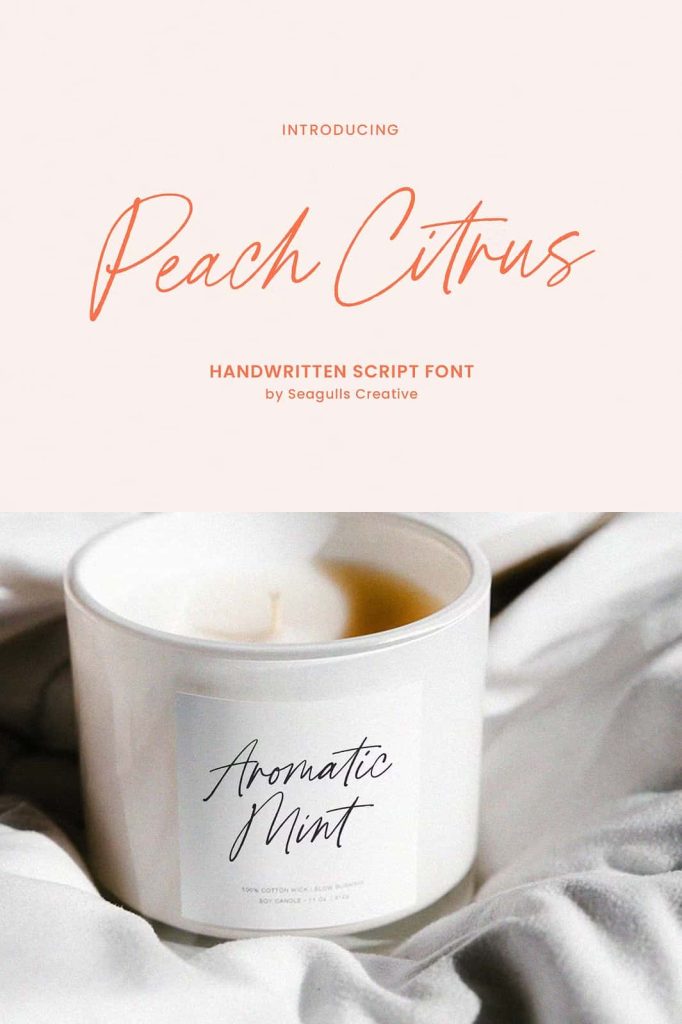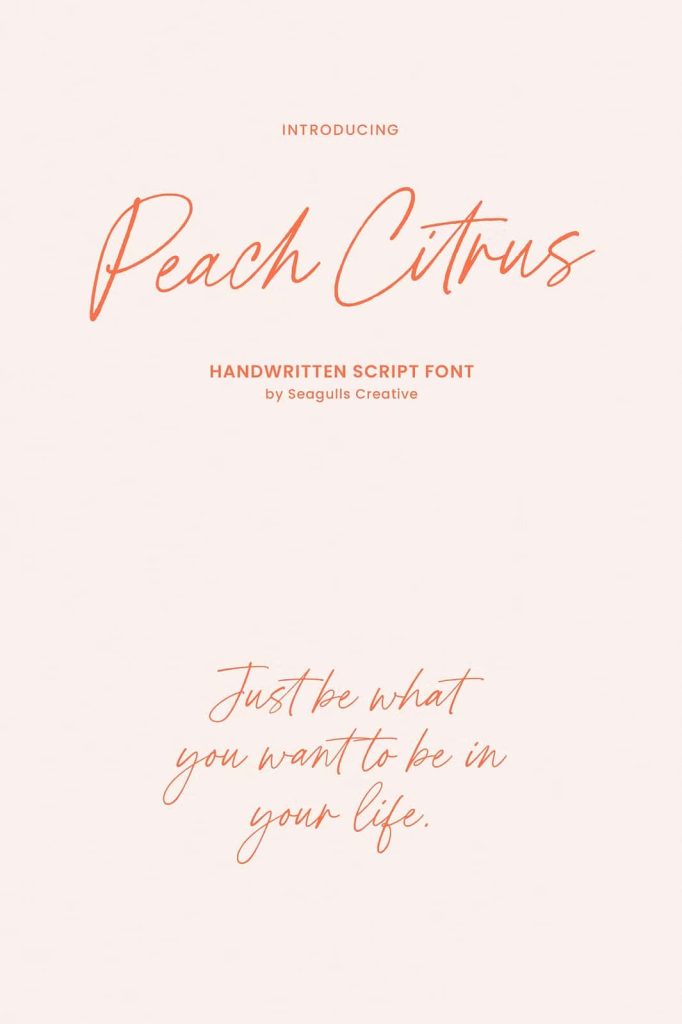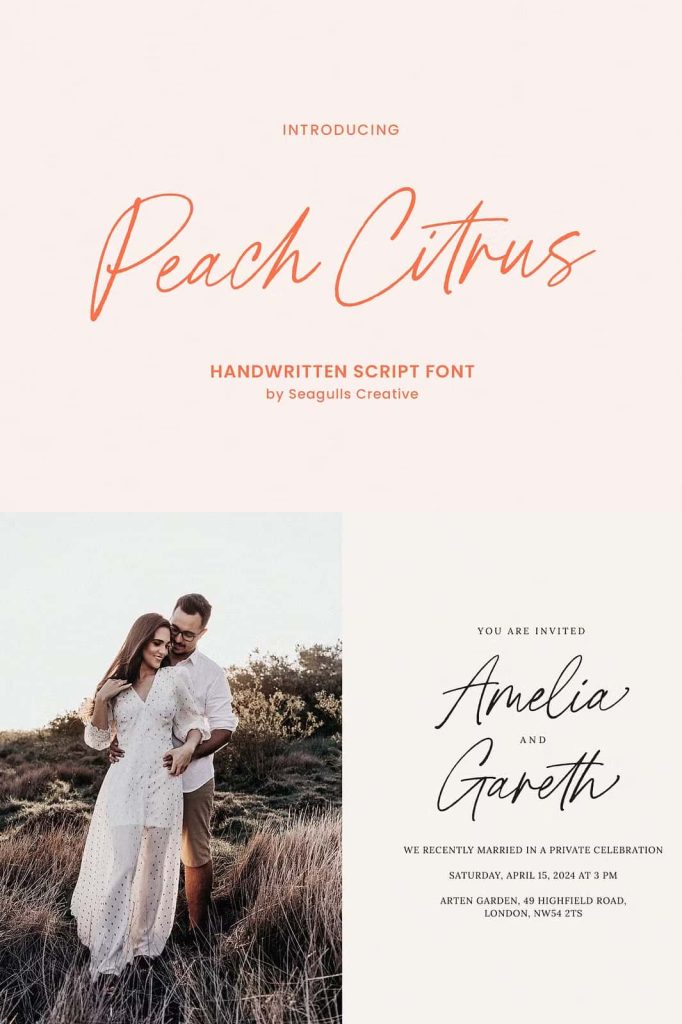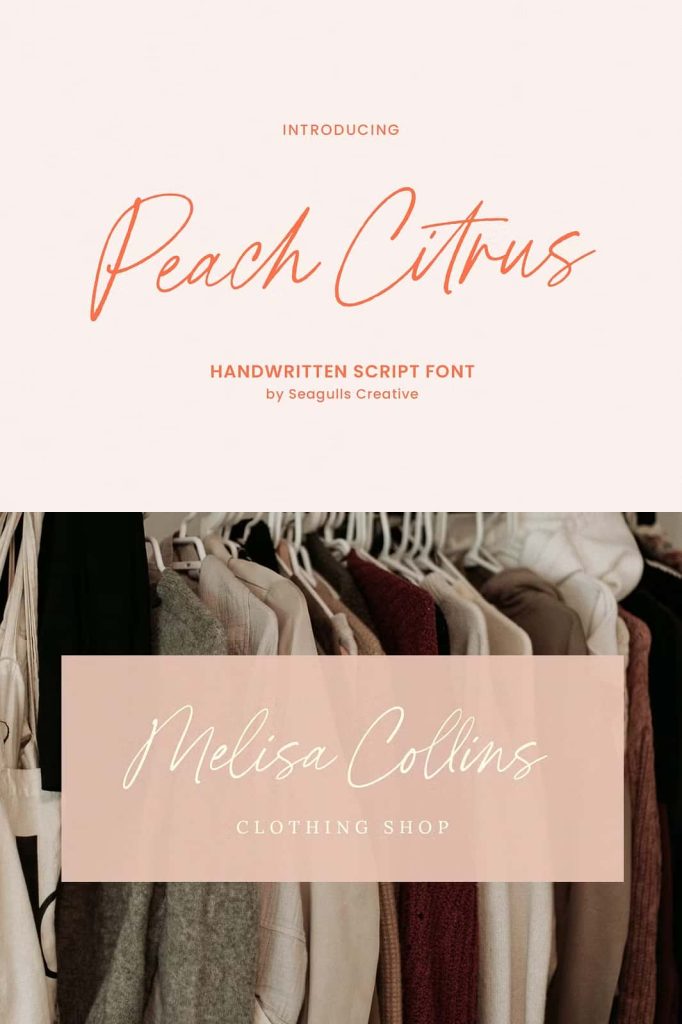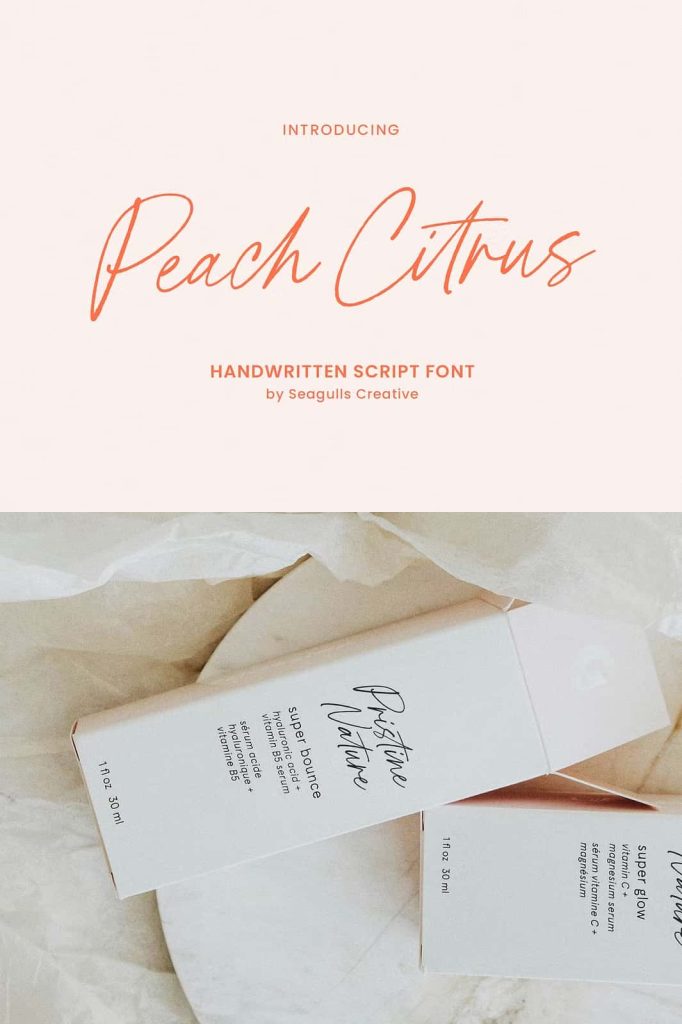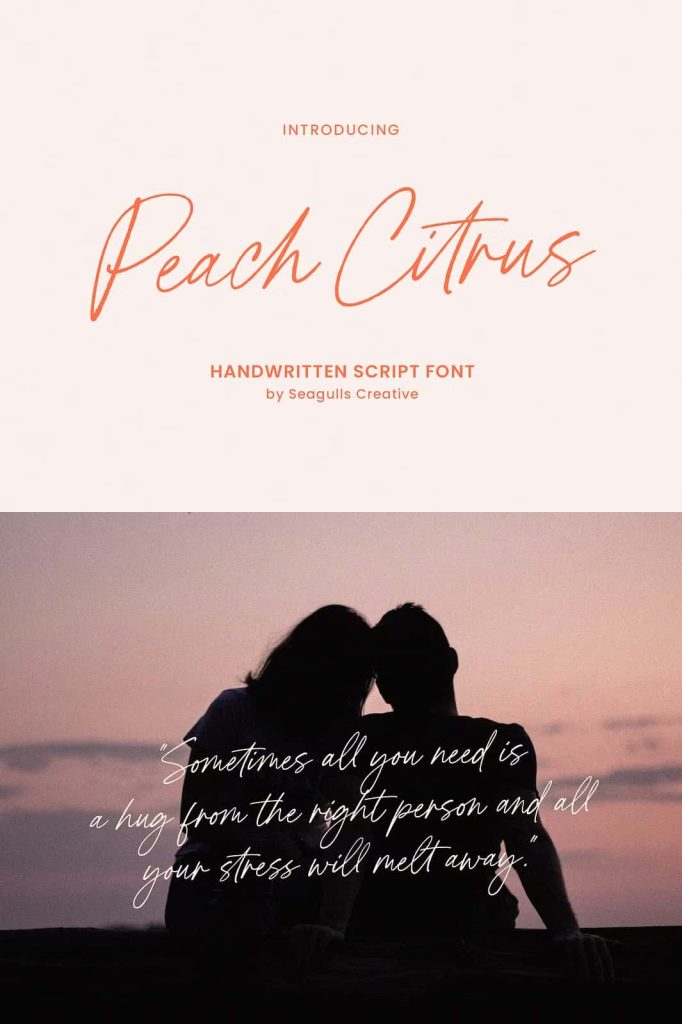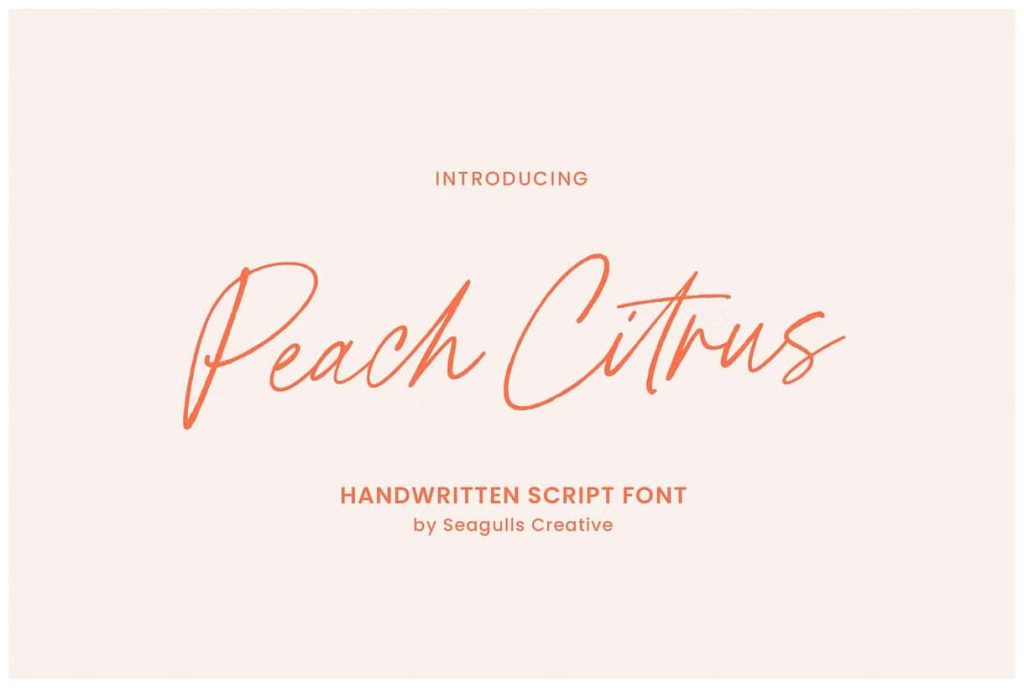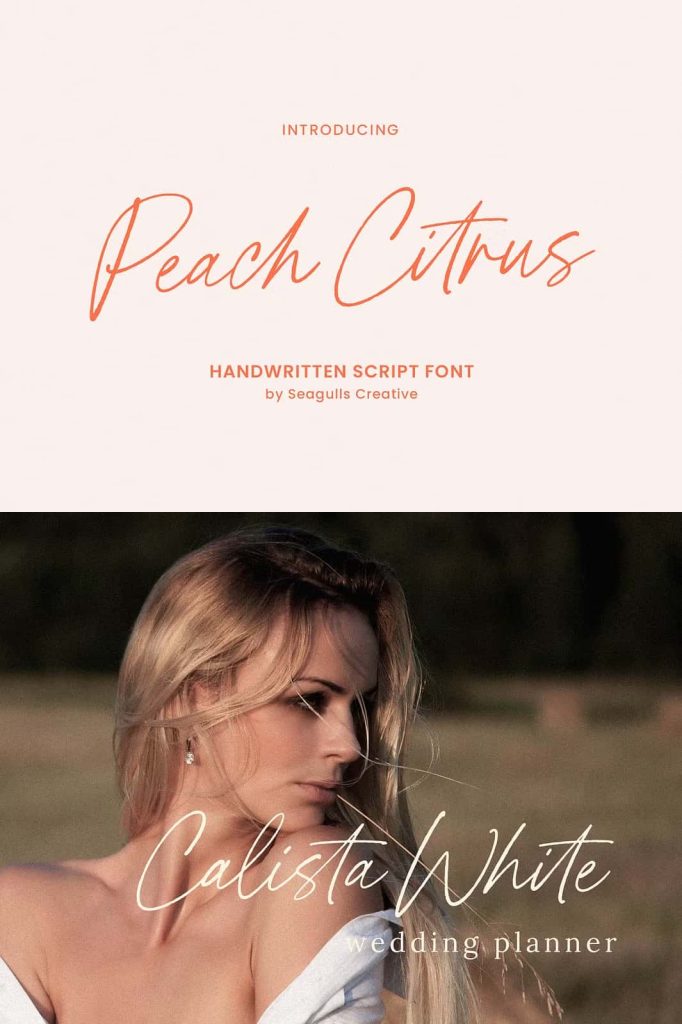
Peach Citrus Font: A Versatile Typeface for Modern Branding and Creative Design
The Peach Citrus Font offers a fresh, modern, and highly adaptable typographic style that elevates any visual project. Whether you design brand identities, product packaging, event materials, or digital content, this typeface brings an expressive balance of elegance and contemporary charm. Peach Citrus stands out because it adapts flawlessly to various themes and creative needs, making it a valuable asset in any designer’s collection. With its smooth curves and stylish personality, this font enriches visual communication and helps your work stand out with confidence.
Enhance Branding with Style and Consistency
Strong branding requires a typeface that communicates personality while remaining highly functional. Peach Citrus delivers both. Its clean structure and expressive flow create an approachable yet professional atmosphere that reinforces brand identity. Businesses that aim for fresh, modern, or elegant aesthetics benefit greatly from this font. It works beautifully on brand logos, tagline designs, business cards, visual identity kits, and marketing materials. By incorporating Peach Citrus into your branding system, you establish visual consistency that strengthens recognition and trust.
Perfect for Product Packaging and Label Design
Product packaging plays a crucial role in capturing consumer attention, and Peach Citrus offers the right balance of charm and sophistication to achieve that goal. Its legible and visually appealing letterforms enhance labels, jars, boxes, bottles, pouches, and artisan product lines. Whether you design packaging for cosmetics, food items, beverages, handmade goods, or boutique products, Peach Citrus helps your layout appear polished and distinctive. It introduces an inviting personality that encourages customers to explore the product further.
Bring Warmth and Elegance to Invitations and Stationery
Peach Citrus also excels in event-related designs. From wedding invitations to personal stationery, this font offers a soft and graceful presence that suits formal and casual occasions. Its charming style works beautifully for envelope addressing, name cards, menus, save-the-date cards, thank-you notes, and handcrafted paper goods. Designers who aim to convey warmth and sophistication will find Peach Citrus indispensable for building emotional and memorable event materials.
Ideal for Photography and Social Media Content
Visual storytelling thrives when supported by expressive typography. Peach Citrus enhances photography overlays, captions, and promotional graphics by adding personality and clarity. Social media creators, influencers, and marketing teams often choose Peach Citrus to develop cohesive feeds, bold announcements, inspirational quotes, and lifestyle visuals. Its clean structure ensures readability on both mobile and desktop screens, making it suitable for platforms like Instagram, Pinterest, Facebook, and TikTok.
Strengthen Advertising and Promotional Material
Effective advertising demands typography that communicates quickly and clearly. Peach Citrus meets these needs by offering strong visual appeal without sacrificing legibility. Its modern style suits posters, banners, flyers, product ads, digital campaigns, and promotional merchandise. Whether your message is bold or subtle, Peach Citrus amplifies the impact of your headline or tagline, ensuring it resonates with audiences across different media formats.
A Reliable Typeface for Product and Digital Design
Designers working in product development and digital interfaces also benefit from the versatility of Peach Citrus. It performs well in UI/UX environments, menu designs, app layouts, and digital product presentations. Its balanced form creates a clean and inviting look that enhances readability and user experience. This versatility makes Peach Citrus a dependable choice for designers aiming to maintain consistency across both physical and digital products.
The Peach Citrus Font stands out as a versatile and stylish typeface suitable for countless applications, including branding, labels, photography, invitations, stationery, wedding materials, social media posts, advertising, packaging, and product design. Its modern aesthetic, clean lines, and expressive character make it an essential tool for designers seeking to elevate their creative work. Whether you work on corporate branding or artistic projects, Peach Citrus offers the adaptability and visual strength needed to create polished, memorable designs.